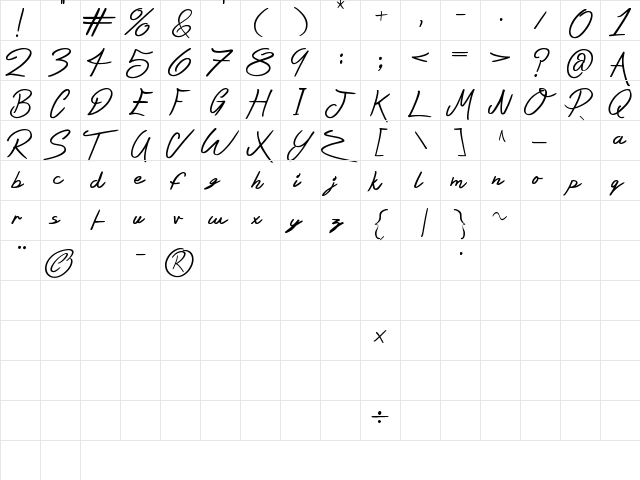
Silent Reaction Regular
Design Context for Silent Reaction Typeface
Silent Reaction is a composed and adaptable typeface that performs quietly and consistently across a wide range of design contexts.